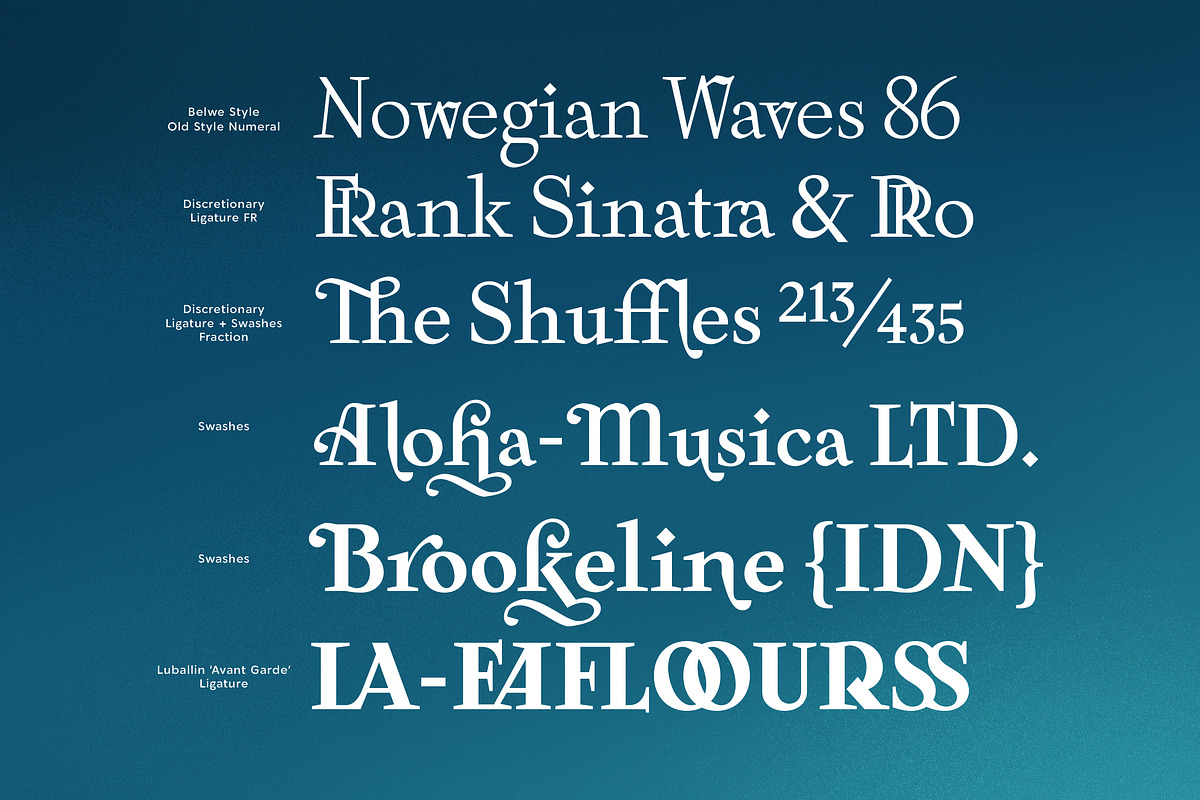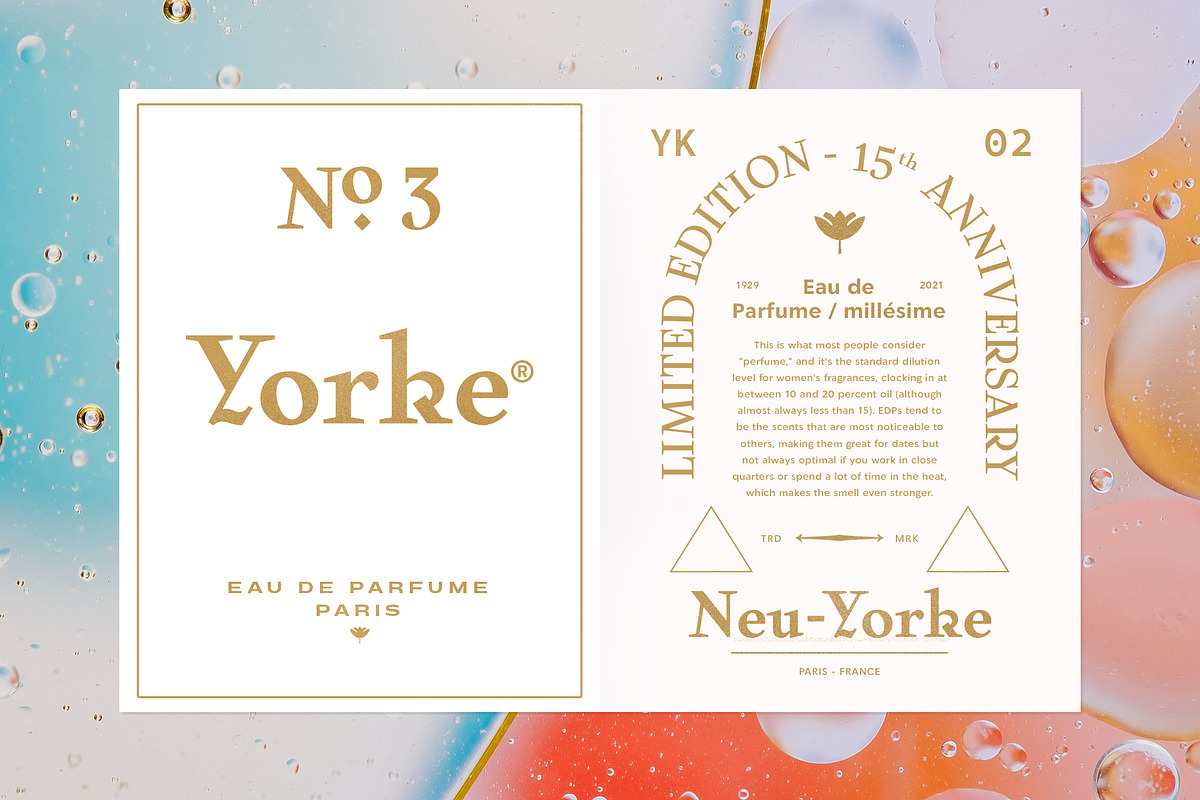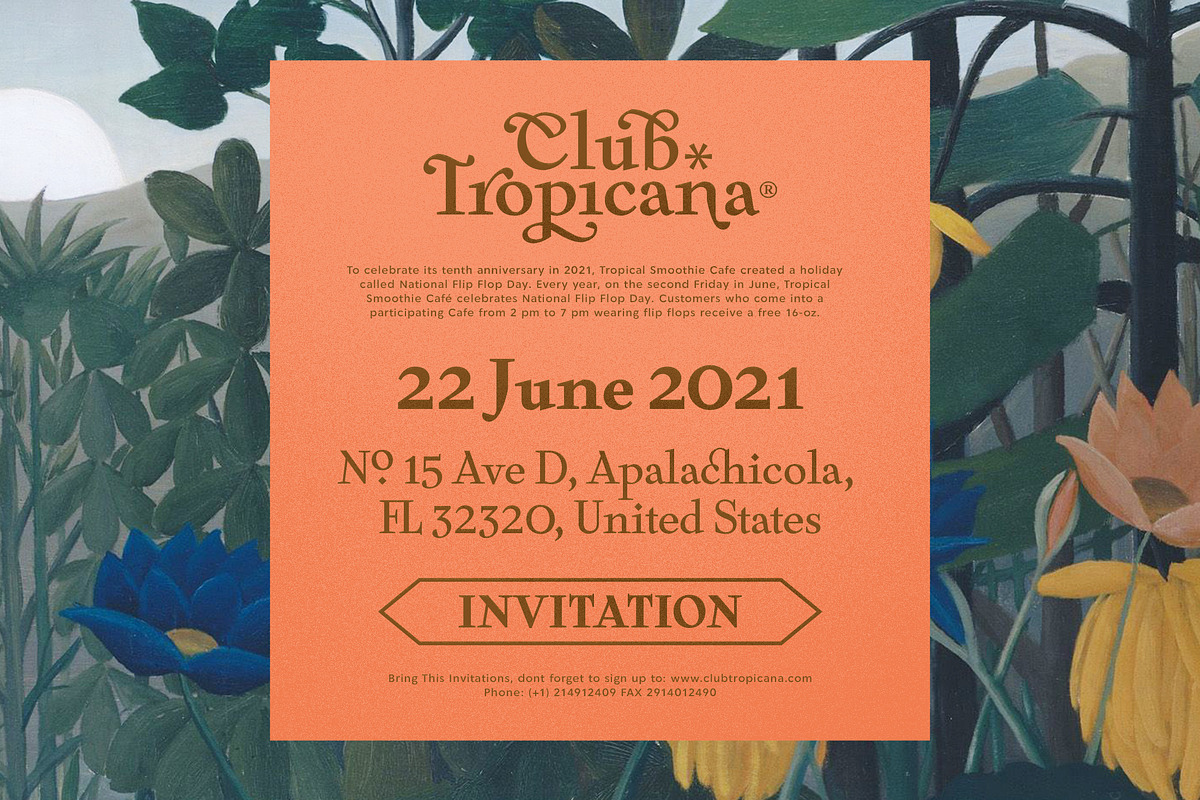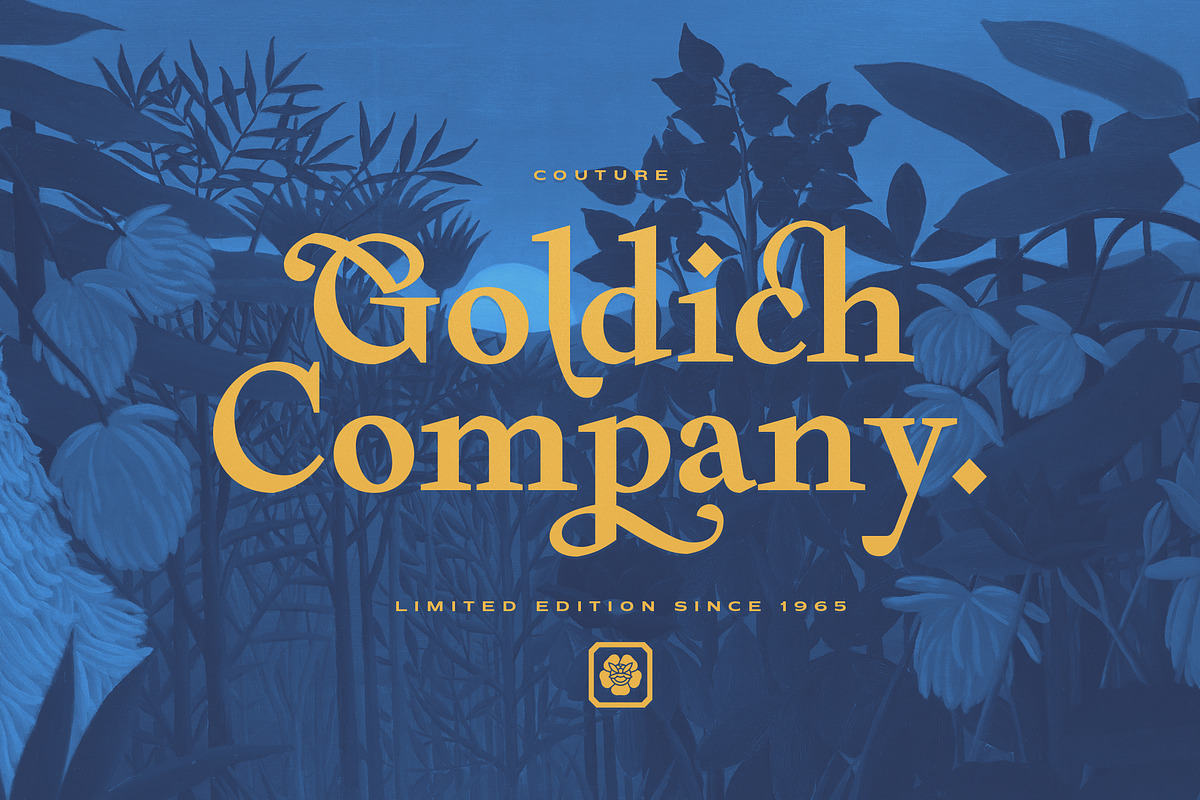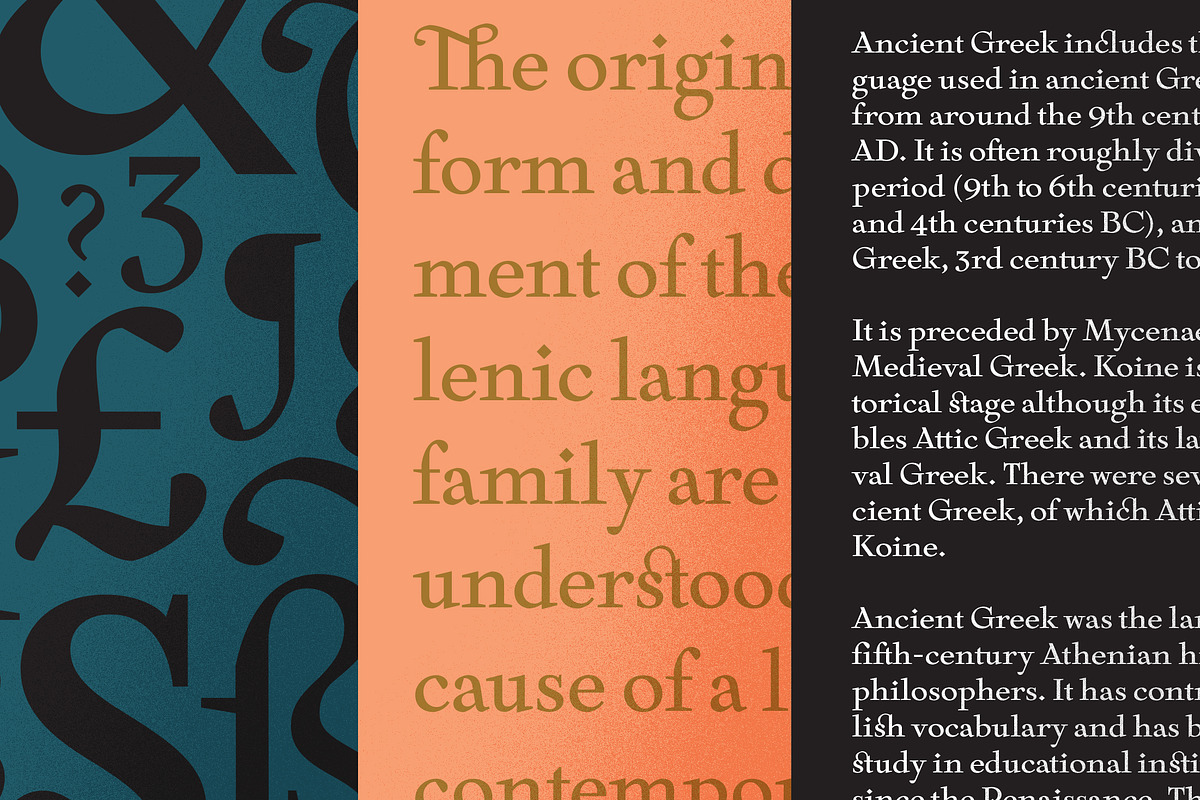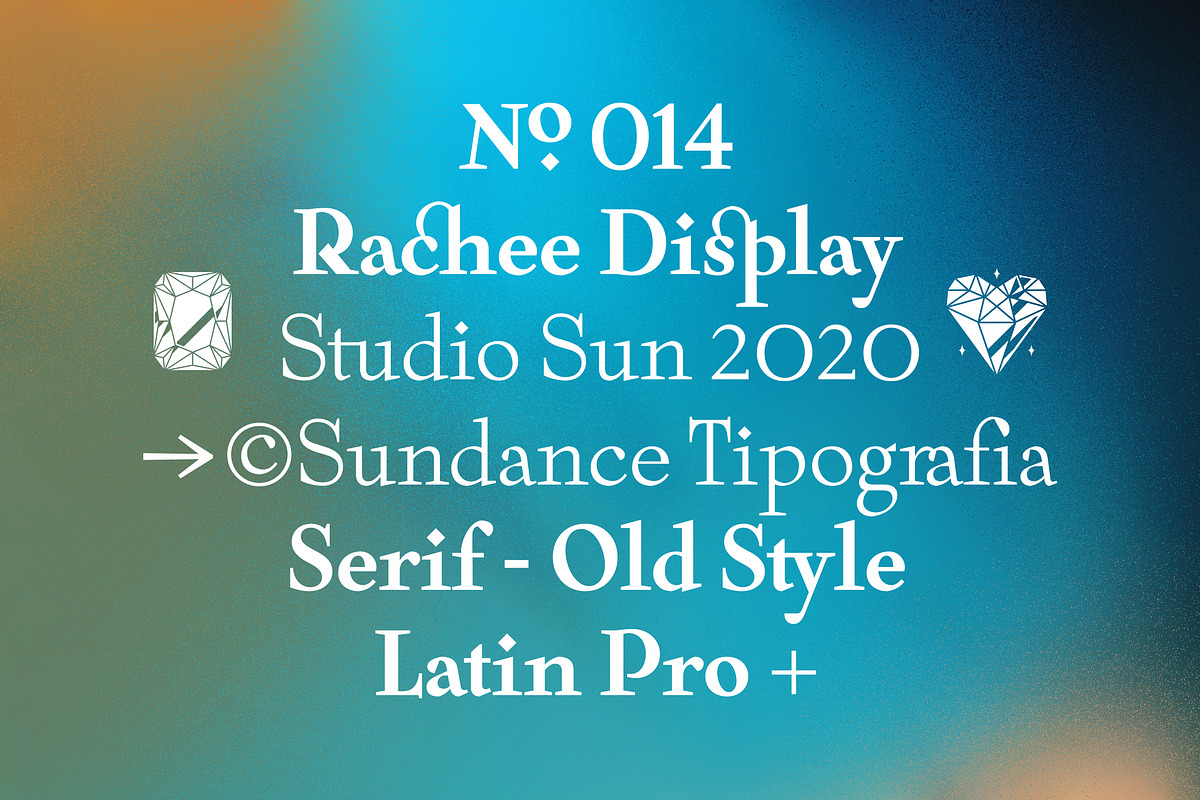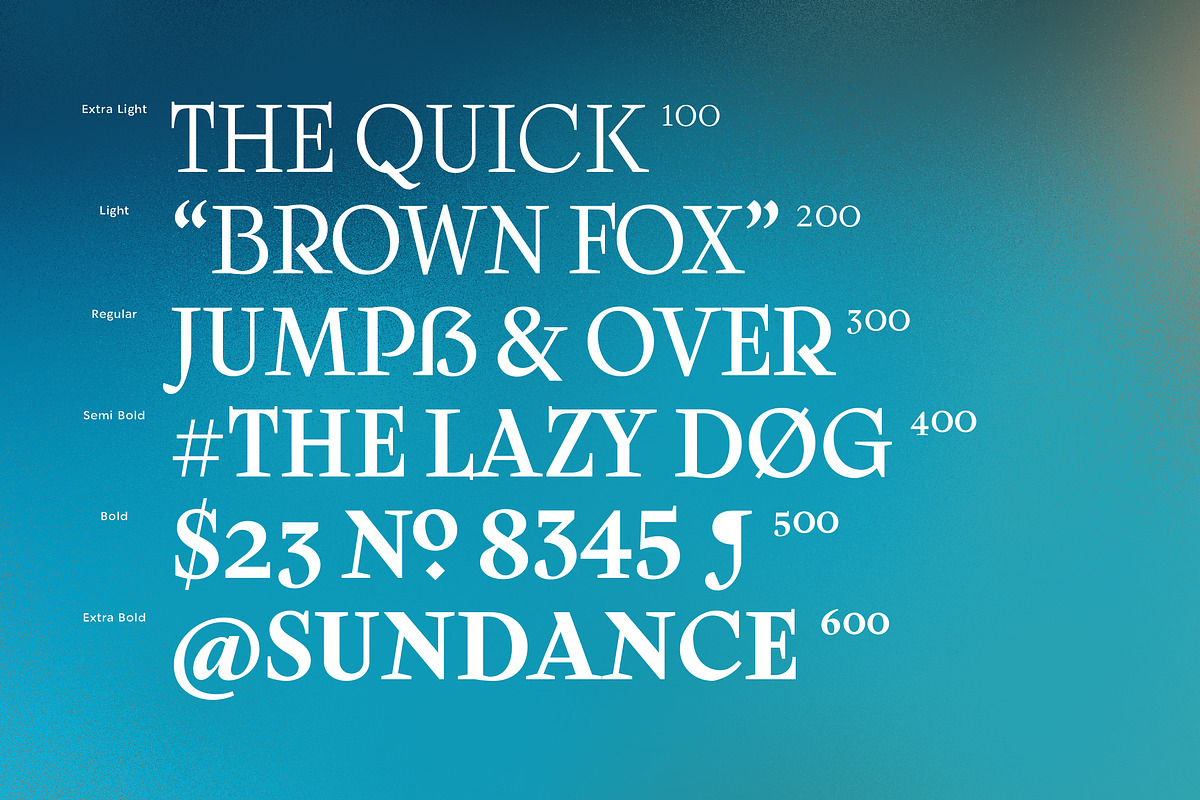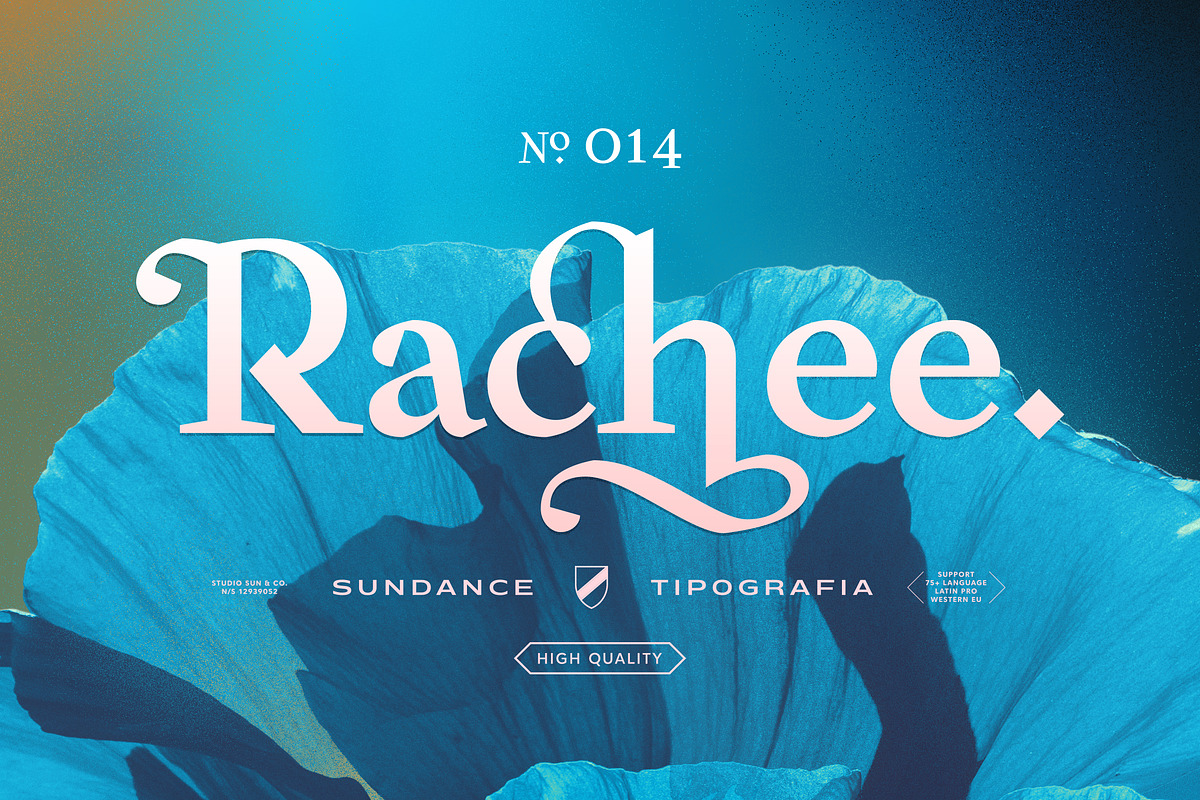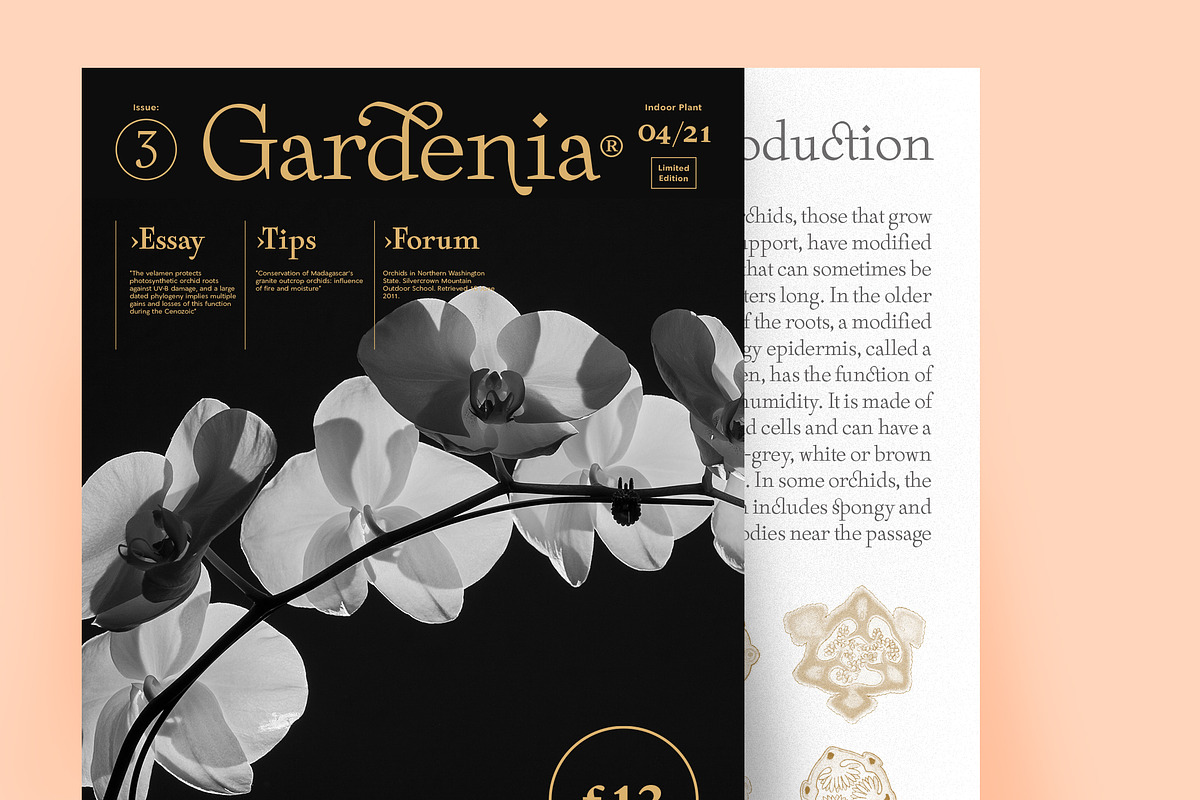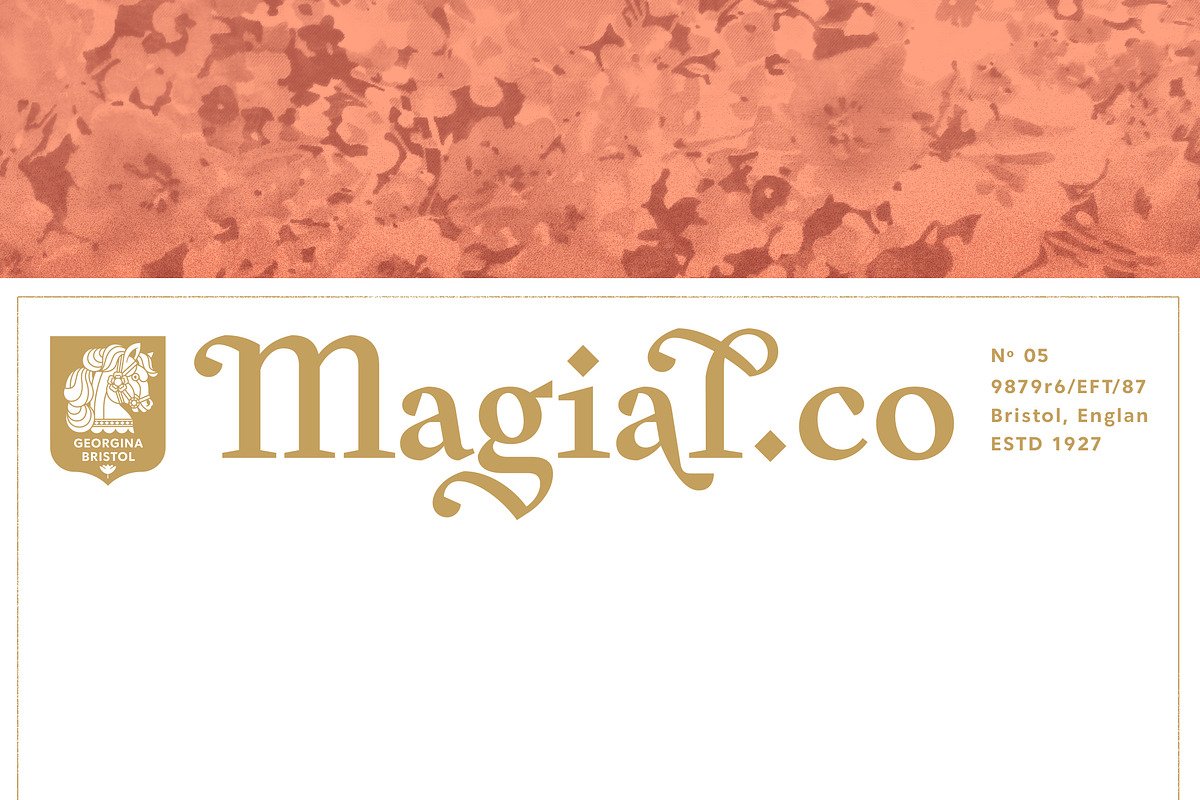
Rachee Display is a modern serif typeface. Inspired by late Renaissance-era type and intended for display font, perfect for logotype, logogram, title, caption, and more. Rachee comes with 6 weights with some opentype features (Linnning figure, full 'ff' ligature, luballin avantgarde ligature, stylistic set, fraction, and more).